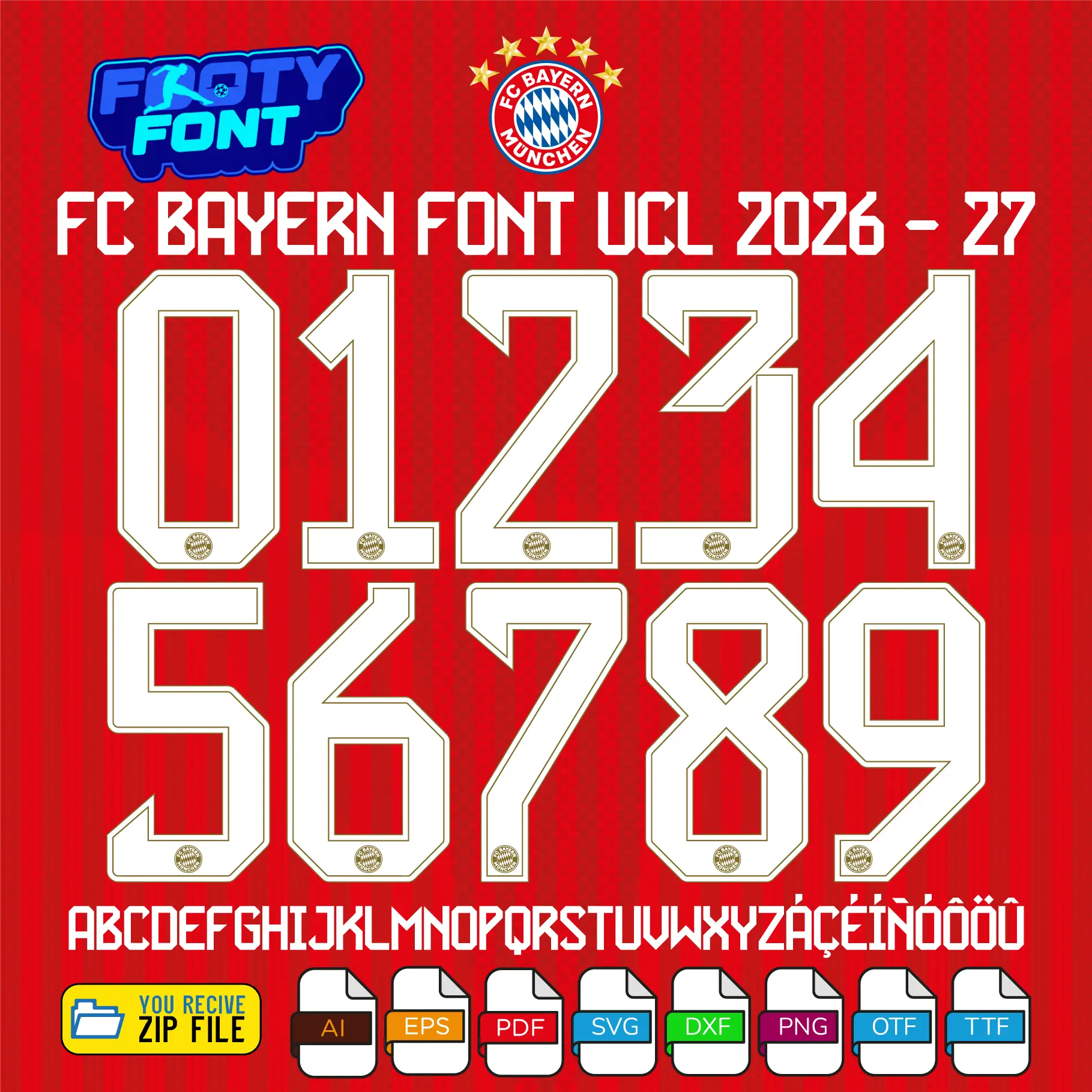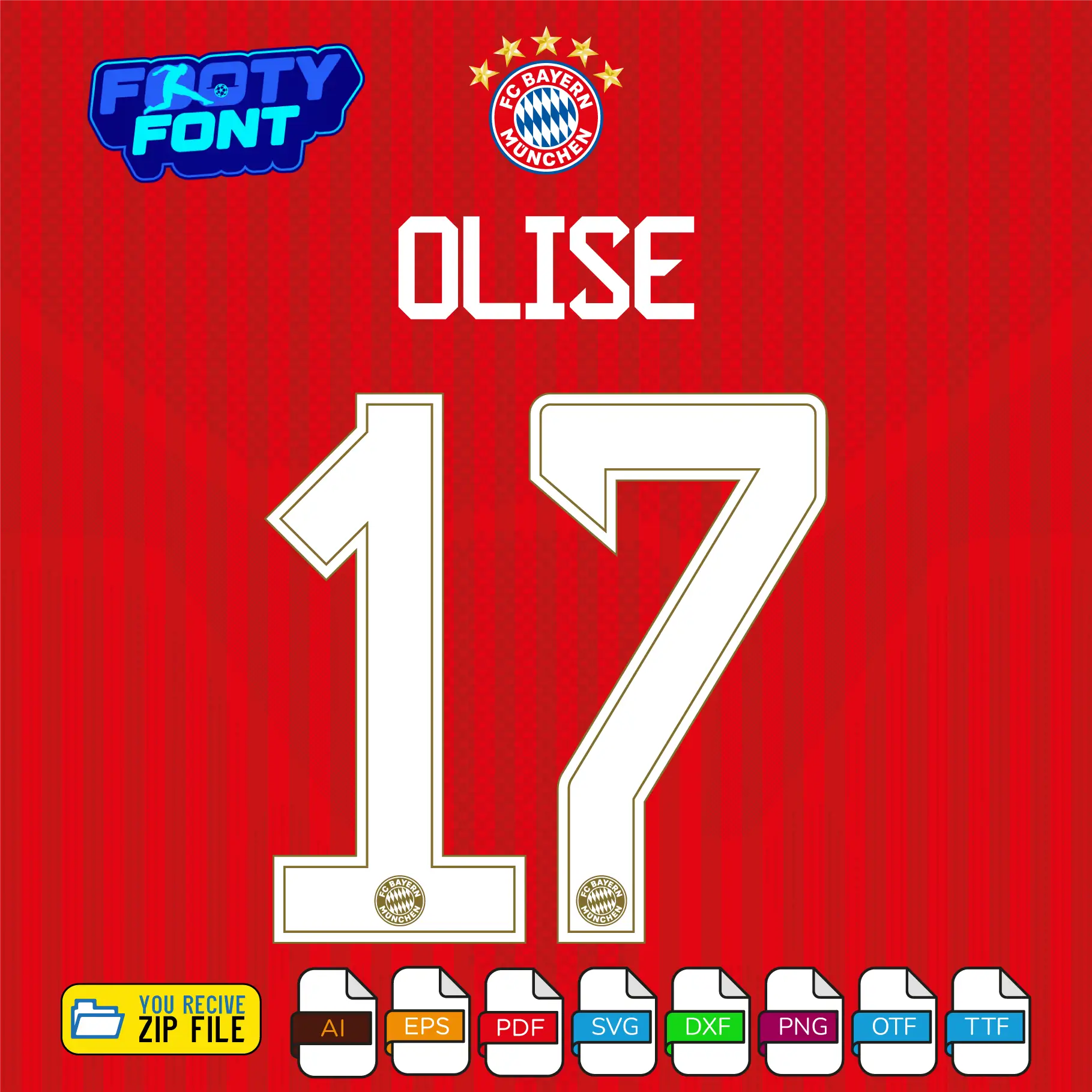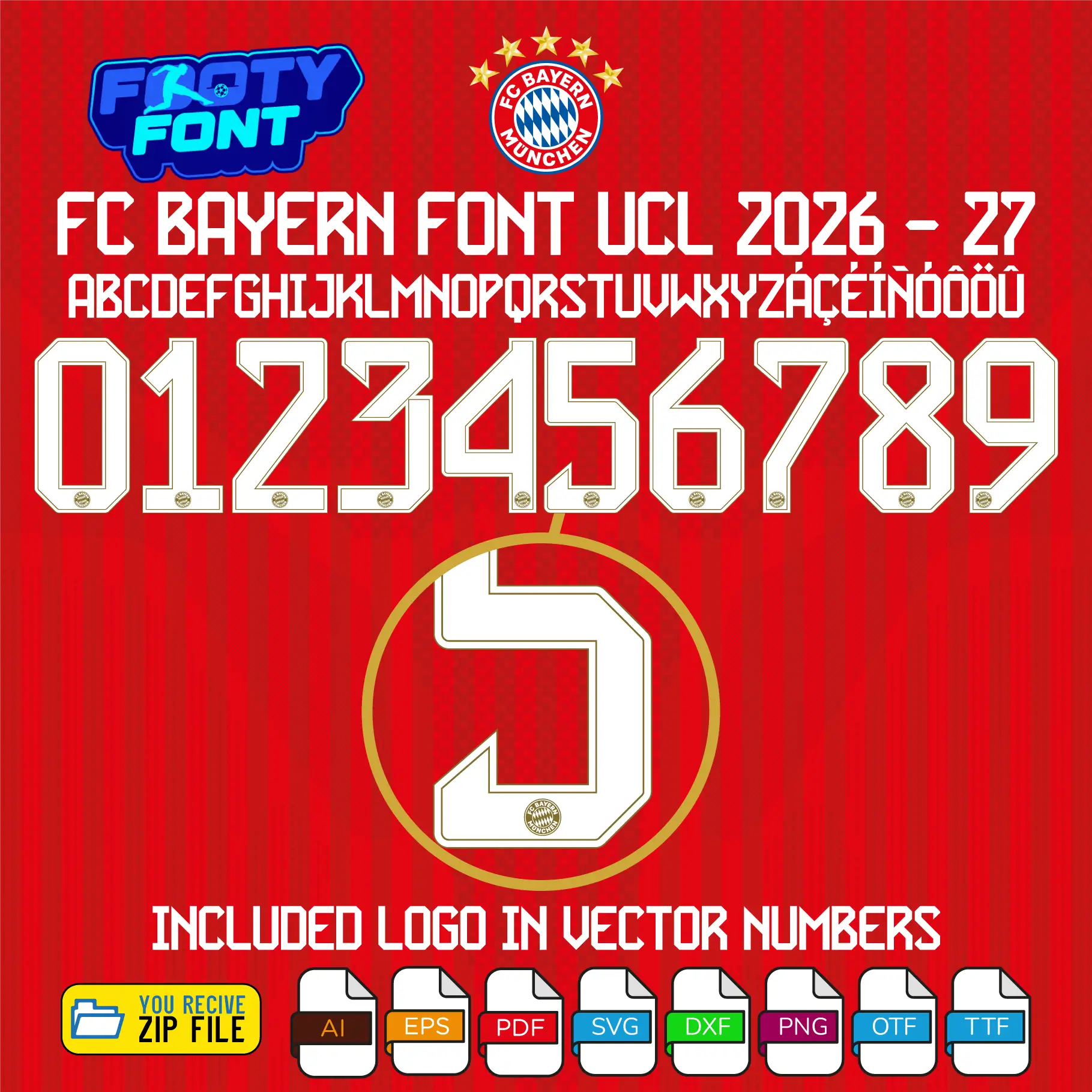
FC Bayern Munich Font UCL 2026-27
Bring the legendary Mia San Mia spirit to your designs with this font football, inspired by the FC Bayern Munich 2026-27 UEFA Champions League kit. This high-quality typeface is meticulously designed to replicate the sleek, modern lettering worn by the German giants during their European nights. It features striking, geometric white numbers with a sophisticated gold outline that perfectly complements their iconic red kits.
This font soccer captures the elite style worn by global superstars like Michael Olise, Harry Kane, and Jamal Musiala. As FC Bayern prepares to compete on the biggest stage in European football, this UCL font is an absolute must-have for fans creating custom jersey designs, digital art, streetwear, or matchday posters.
Use this font football to bring authentic German football style into your designs-whether for custom jersey graphics, fan merchandise, posters, or social media content.